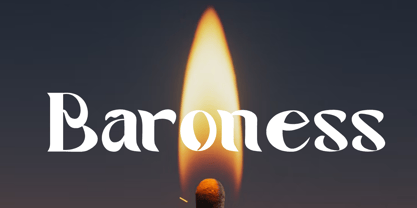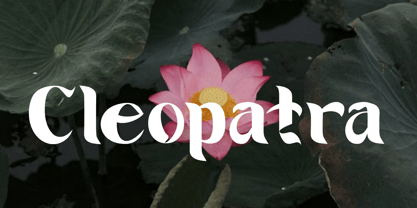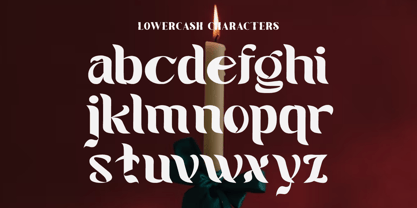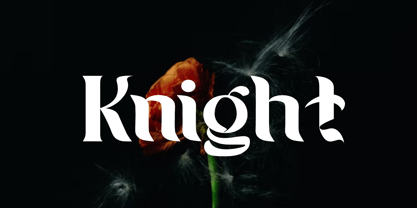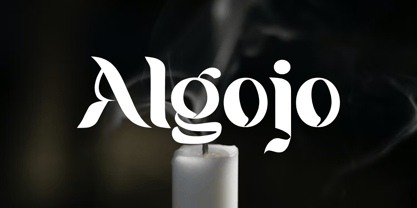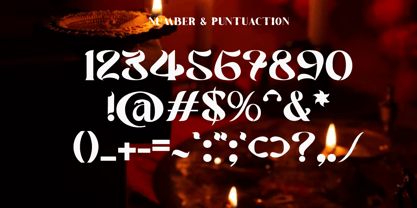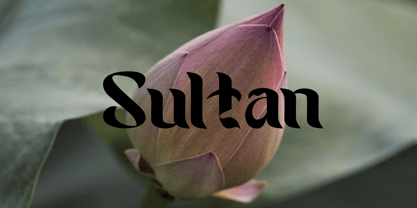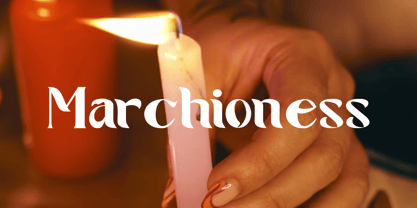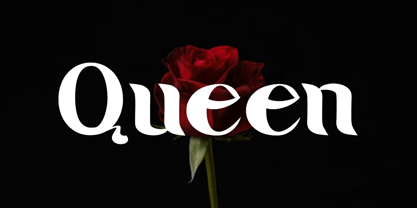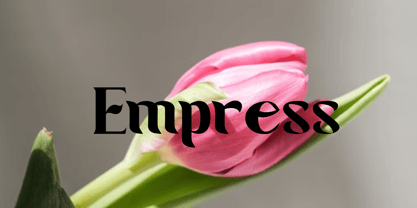
Seven Prince
by Letternesia studio
The Seven Prince Font Family was designed by Ta Siyo and published by Letternesia studio. Seven Prince contains 2 styles and family package options.
Seven Price is a bold and modern display font designed to capture attention in various visual contexts. Featuring sharp angles, clean lines, and a unique geometric structure, Seven Price delivers a futuristic and premium feel—perfect for product branding, promotional posters, tech designs, and exclusive packaging.